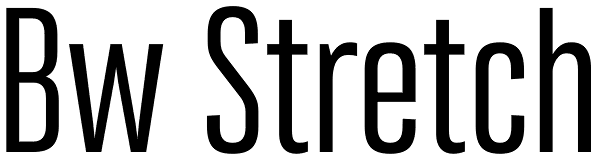
Bw Stretch
Bw Stretch is a compressed grotesque suited for display but also body text purposes. Inspired by early wood-block screen-printing sans serif designs, it spreads across eight weights from Thin to Heavy, covering all European Latin languages. It...